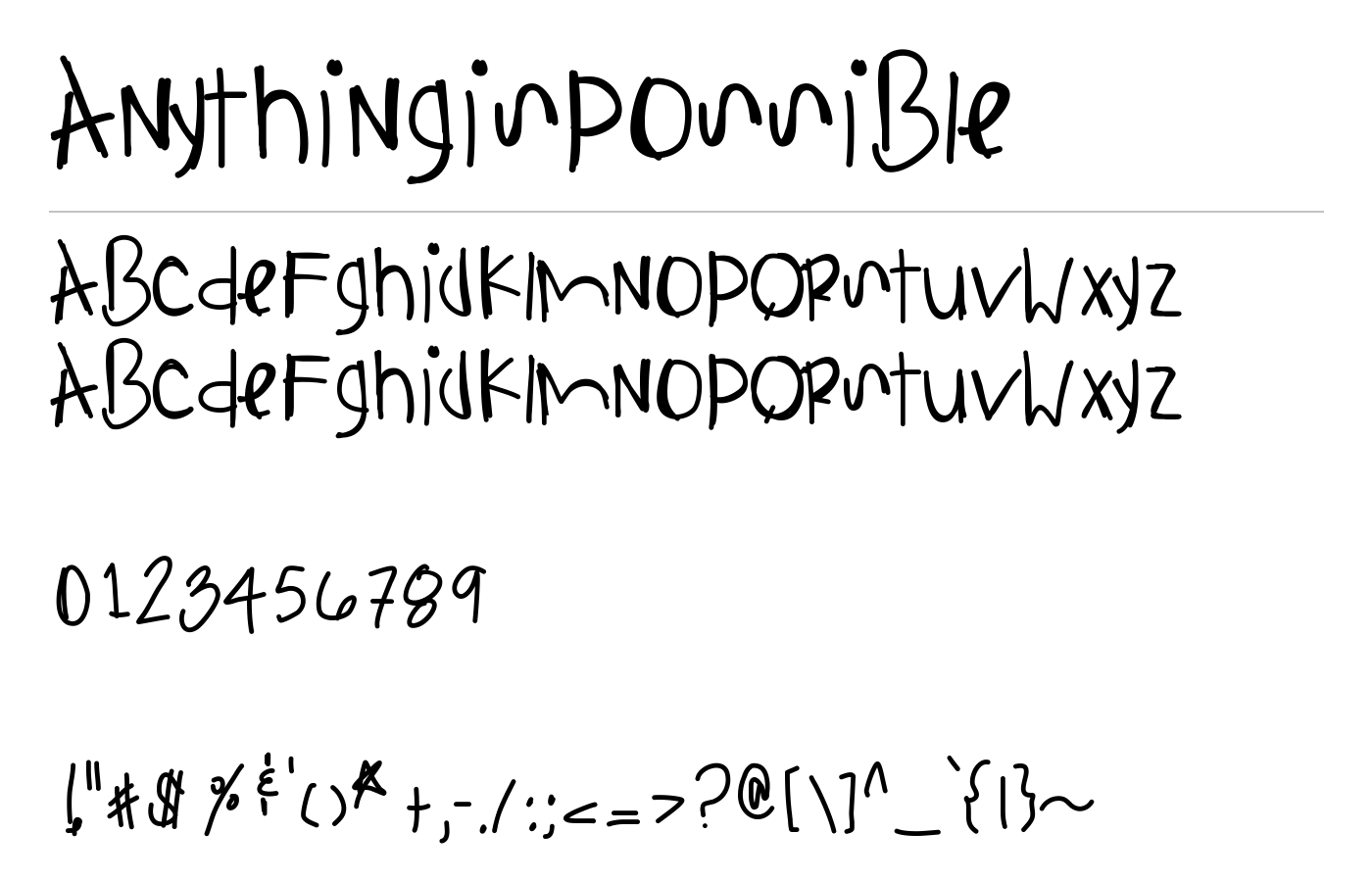
AnythingIsPossible is a playful and quirky handwritten font with a casual, uneven stroke style that mimics natural handwriting. Its tall, narrow letterforms with irregular shapes lend an approachable and whimsical personality, making it ideal for creative, informal designs like children's books, greeting cards, or fun branding. This font works best in small doses for headlines or logos where its unique charm can stand out without compromising readability.
AnythingIsPossible Font
About AnythingIsPossible Font